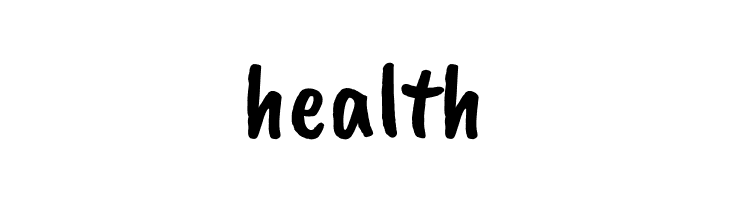
Caveat Brush Font
A bold, brush-style font with a casual, handwritten look.
2colorideas sans Font
A tall, narrow, and modern font with consistent stroke width and geometric elements.
ElMessiri-Regular Font
A modern serif font with elegant proportions and excellent readability.